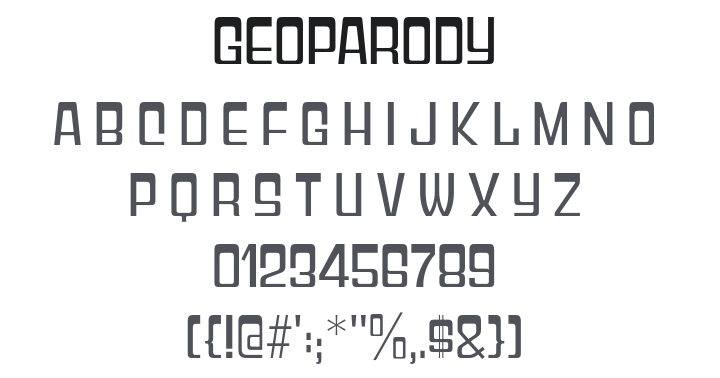
Geoparody Font Family
About Geoparody
Geoparody is an all-caps display family that shifts personality with its weight; from the sleek, midcentury poise of the light styles to the commanding presence of the boldest cuts. Its squared forms, flat sides, and angled details create a clean, mechanical rhythm tempered by approachable proportions. With six weights and matching italics, it moves effortlessly from refined editorial use to assertive branding and signage. Geoparody bridges eras, offering modern versatility with a touch of retro optimism.